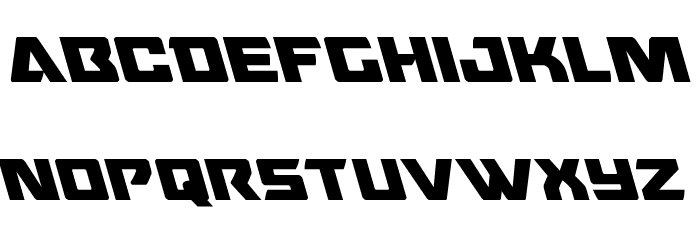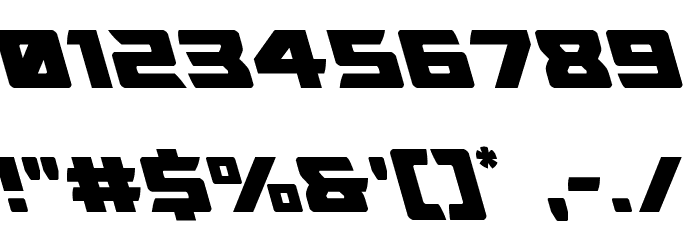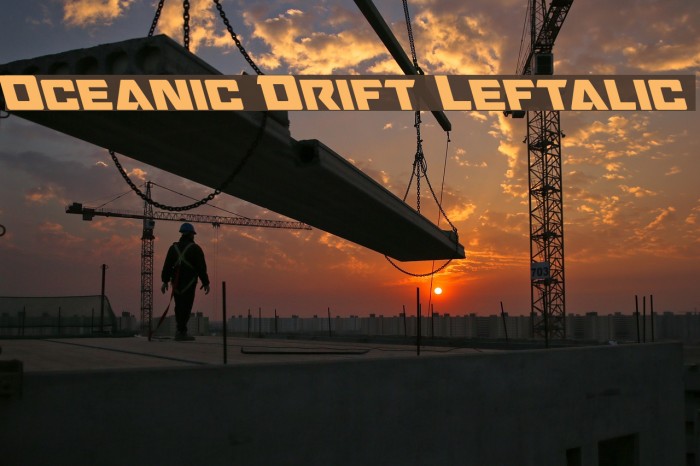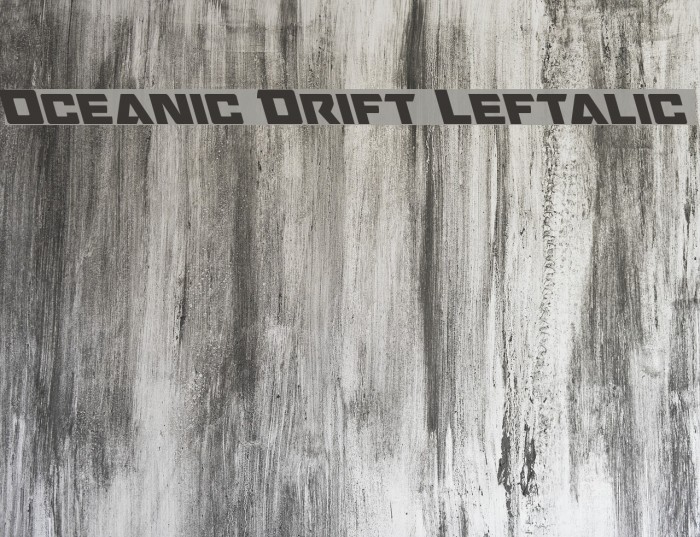
Oceanic Drift Leftalic Font
This font features a bold and dynamic style with a distinct slant to the left, giving it a sense of motion and energy. The characters are blocky and geometric, with sharp angles and a strong presence. The uppercase and lowercase letters maintain a consistent weight, contributing to a cohesive look. Numbers and special characters are designed to match the boldness and angularity of the alphabet, ensuring uniformity across all glyphs. The font's unique style makes it stand out, ideal for projects that require a modern and edgy aesthetic.
A bold, left-slanted font with geometric and angular characters.
- Font: Oceanic Drift Leftalic
- Proposed Projects: Ideal for sports branding, video game titles, posters, and dynamic advertising campaigns.